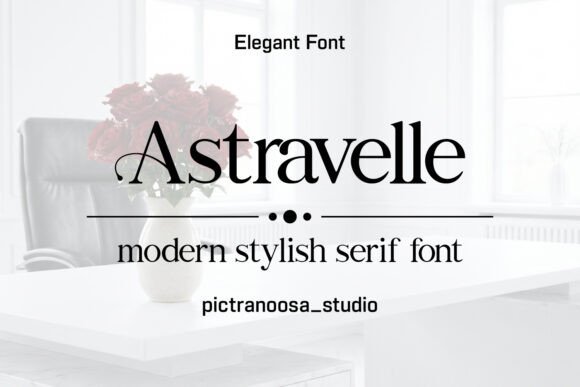
I still remember the countless hours I spent searching for the perfect font for a high-end fashion brand project. My client wanted a typeface that exuded luxury, sophistication, and a touch of modernity. I scoured the internet, tried out numerous fonts, but nothing seemed to fit the bill. That was until I stumbled upon Astravelle Font. ✨
In this article, I’ll share my experience with Astravelle, its features, and how to make the most of this stunning typeface. Whether you’re a designer, crafter, or creative hobbyist, you’ll learn how to elevate your projects with Astravelle’s unique blend of classic elegance and modern chic.
First Impressions: Astravelle Font Review
- ✨ Timeless Elegance: Astravelle’s serif design and high contrast give it a sophisticated, luxurious feel.
- ✅ Refined Curves: The font’s smooth curves and lines make it perfect for body text and headlines.
- 💡 Unique Character Shapes: Astravelle’s distinct character shapes add a touch of artistic flair to any project.
- 📚 Legibility: The font’s design ensures excellent legibility, even at smaller font sizes.
While Astravelle is an exceptional font, there are a few minor quirks to consider:
- 🤔 Limited Use in Certain Contexts: Astravelle’s luxurious feel might not be suitable for more playful or casual projects.
- ⚠️ Glyph Compatibility: Some glyphs might not work seamlessly with all software or platforms.
A Practical Guide to Using Astravelle
The Story Behind Astravelle
Astravelle was designed by a team of typographers who aimed to create a font that embodies the perfect balance of classic elegance and modern sophistication. Inspired by traditional serif fonts, they refined and updated the design to meet the needs of contemporary designers. The result is a versatile typeface that adds a touch of luxury to any project.
Q: What makes Astravelle suitable for luxury brands?
A: Astravelle’s high contrast, refined curves, and unique character shapes give it a sophisticated, luxurious feel that’s perfect for high-end brands.
Q: Can I use Astravelle for body text?
A: Yes, Astravelle is designed to be legible and elegant in body text, making it suitable for editorial layouts, articles, and more.